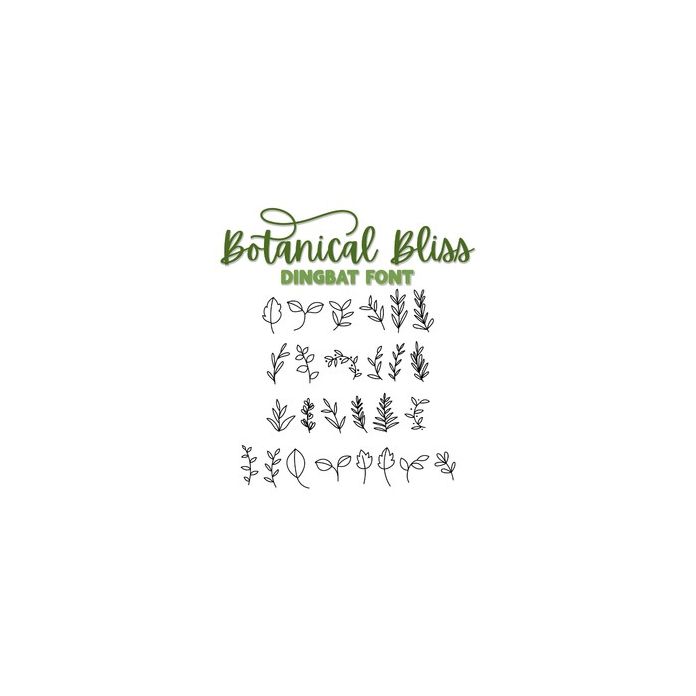
Introducing "Botanical Bliss" – a charming collection of whimsical greenery and botanical doodles that invite nature's beauty into your creative projects.